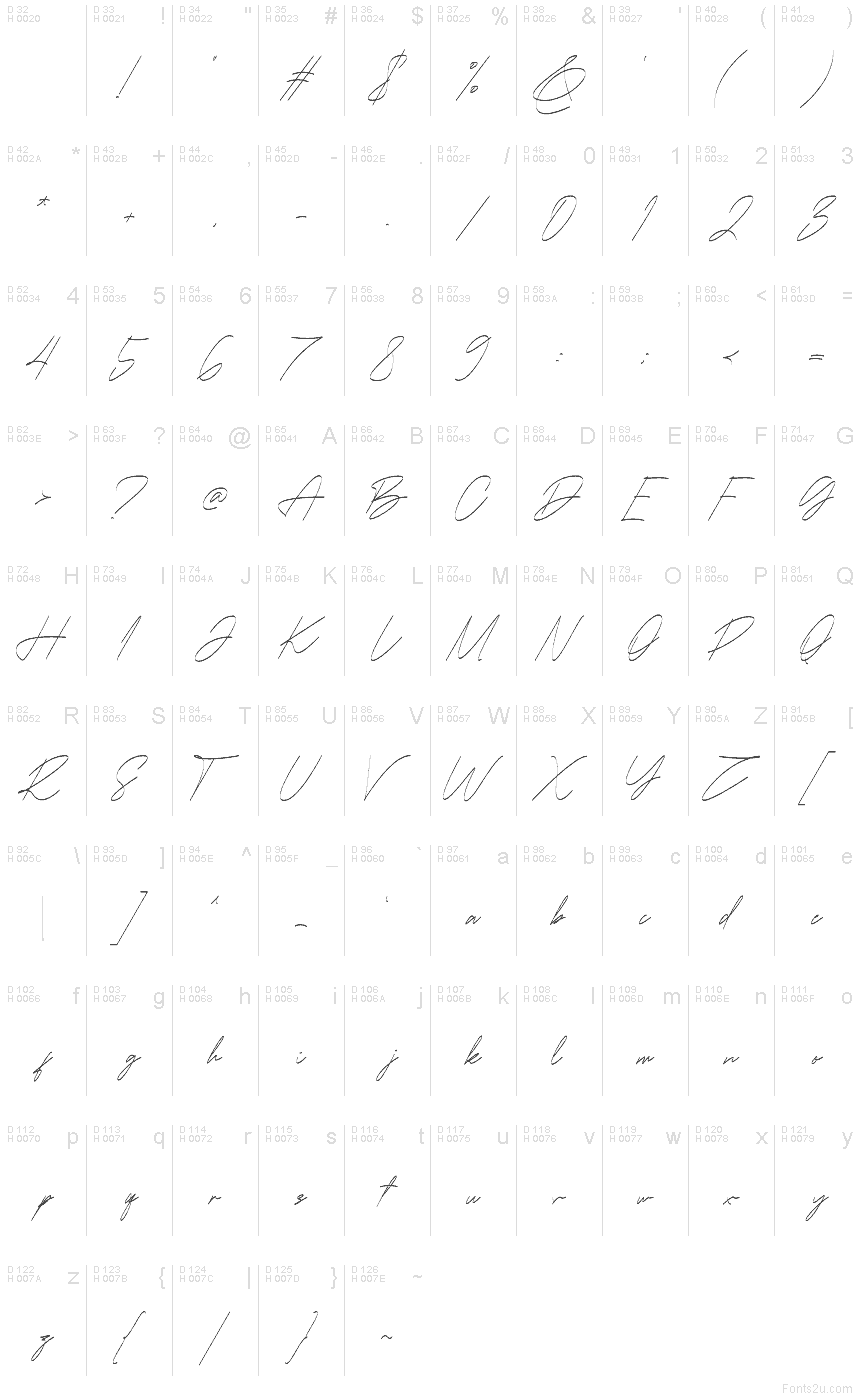
Jellmotsy
Jellmotsy font, a creation by Jadatype, has an elegant and sophisticated flowing handwritten style. It is an expressive signature light font that holds a touch of personality. It showcases sophistication with its thin strokes and seamless connections for its characters.